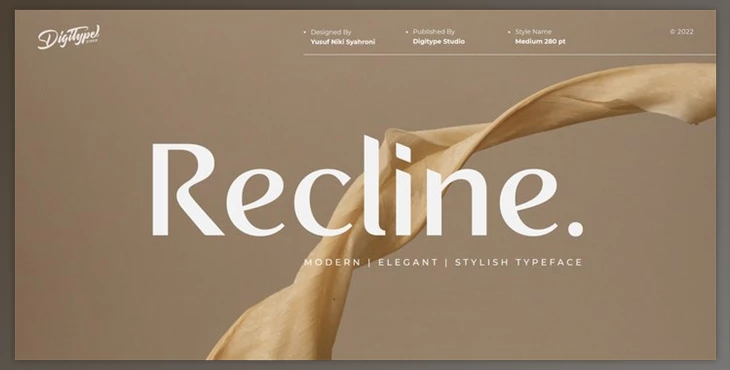
Recline Font Family:
Recline is available in a modern style with 10 weights and five straight and angled making it simple to adjust to your style of yours. A stylish typeface Recline is ideal for corporate identity websites, publishing magazines, books, titles and business cards, logos packaging, labels for products, and any other advertisement.